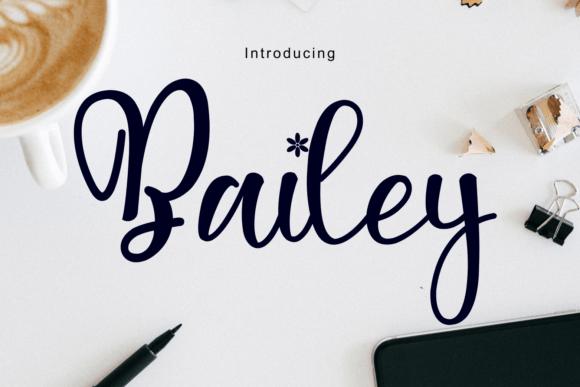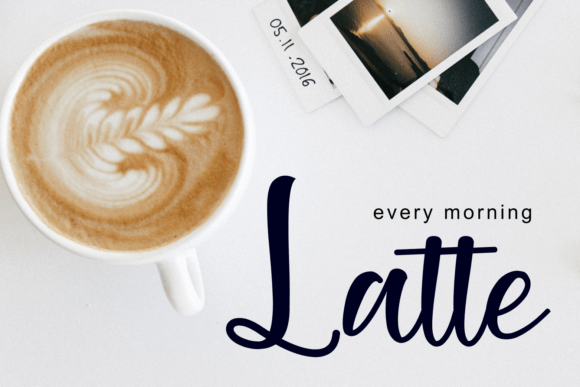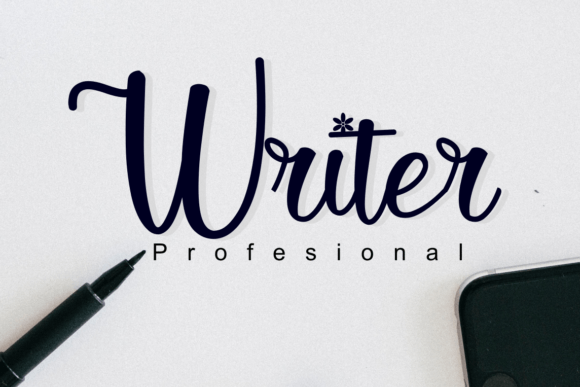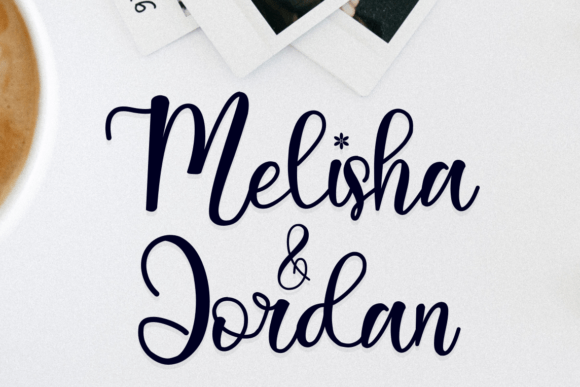
Bailey Font
Introducing Bailey Font
The Bailey Font is a stylish and elegant handwritten script typeface known for its refined and sophisticated appearance. This font offers a versatile option that can enhance the aesthetics of a wide variety of design projects. Its appeal lies in its ability to convey style and elegance with its distinctive script style.
Why Choose This Typeface?
• Stylish and Elegant: Bailey adds sophistication to your designs, making it suitable for branding materials, invitations, stationery, and more.
• Versatile Usage: This font provides a visually appealing choice for social media graphics and other creative endeavors, allowing you to infuse your designs with elegance.
Applications of Bailey
• Branding: Use this font to create elegant branding materials that capture attention.
• Invitations: Enhance your invitations with a sophisticated style that conveys elegance.
• Stationery: Perfect for adding a stylish script aesthetic to stationery and other creative projects.
The Impact of Using Bailey
This font elevates your designs by making them visually captivating and memorable. It becomes a reliable tool for designers seeking to create projects that stand out with elegance. Its balanced form ensures your designs are both refined and captivating.
The Value It Brings
This typeface excels in combining contemporary design aesthetics with classic elegance. By choosing Bailey, you ensure your designs are not only visually appealing but also sophisticated and unique.
This font is also ideal for various creative projects beyond traditional uses. It can enhance digital designs with its elegant flair, making it suitable for websites, brochures, or mobile interfaces. The Bailey Font adapts well to different screen sizes while maintaining its charm. As design trends evolve, this font remains relevant due to its timeless appeal, balancing style with functionality effectively.